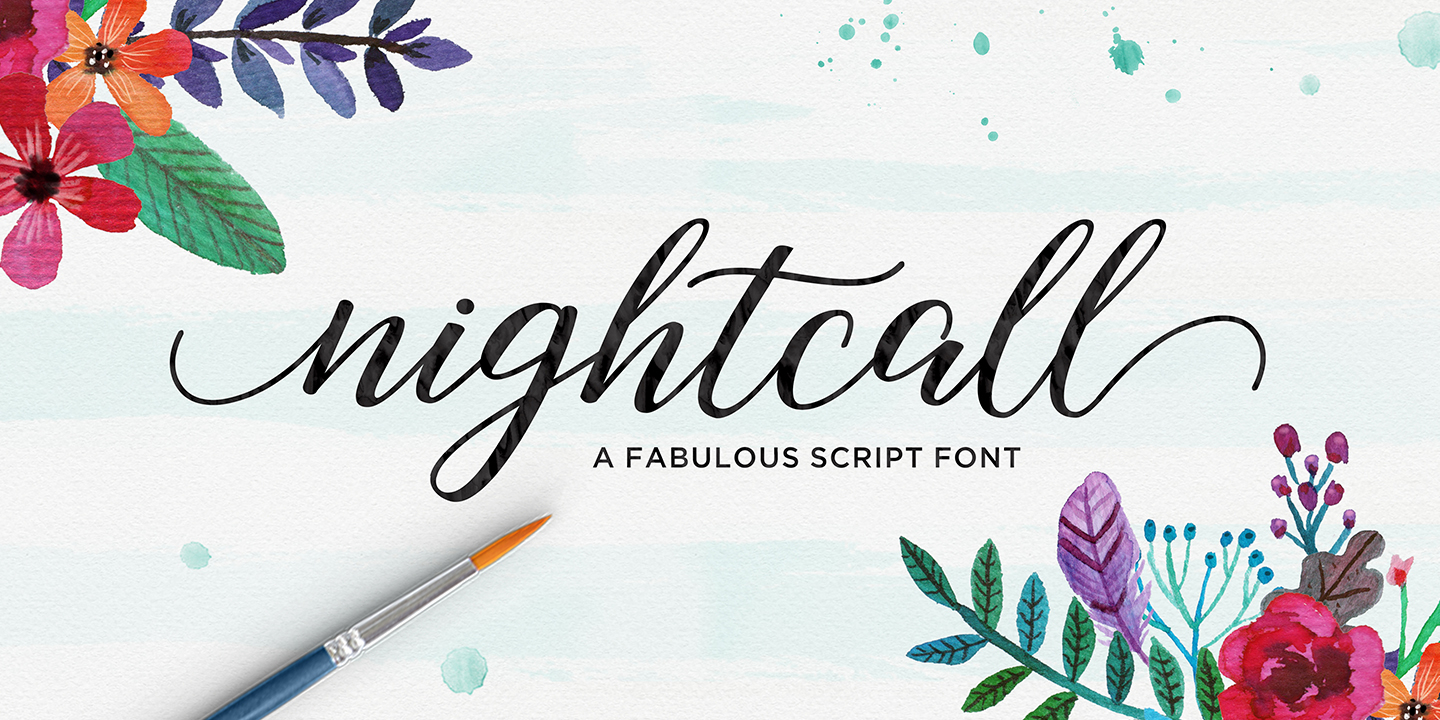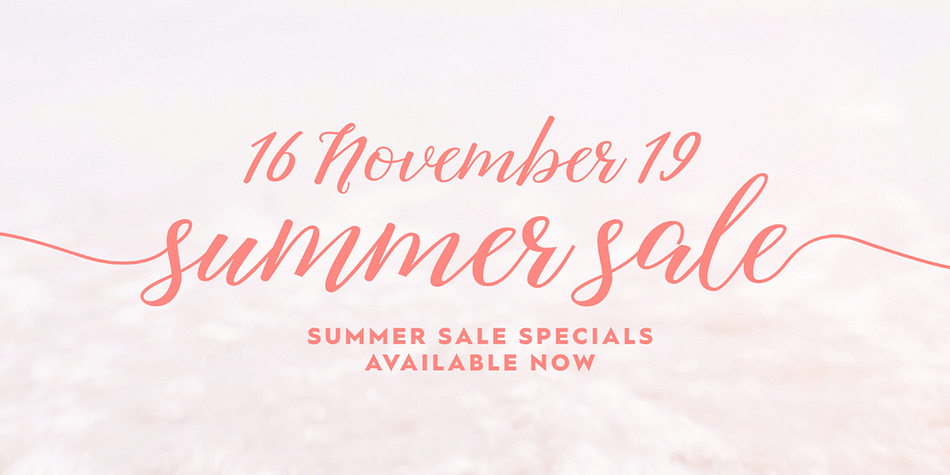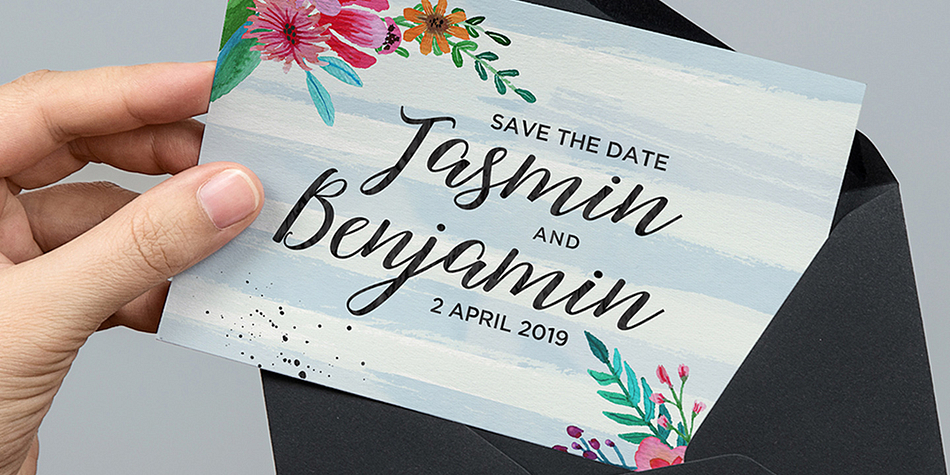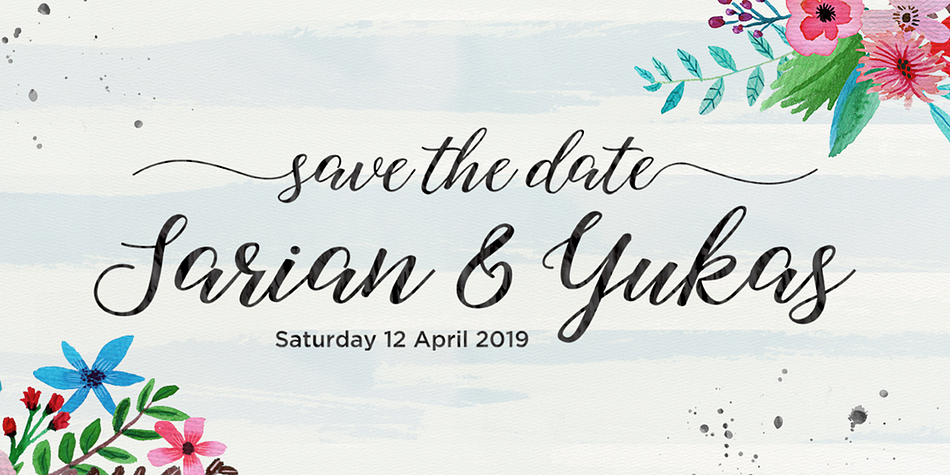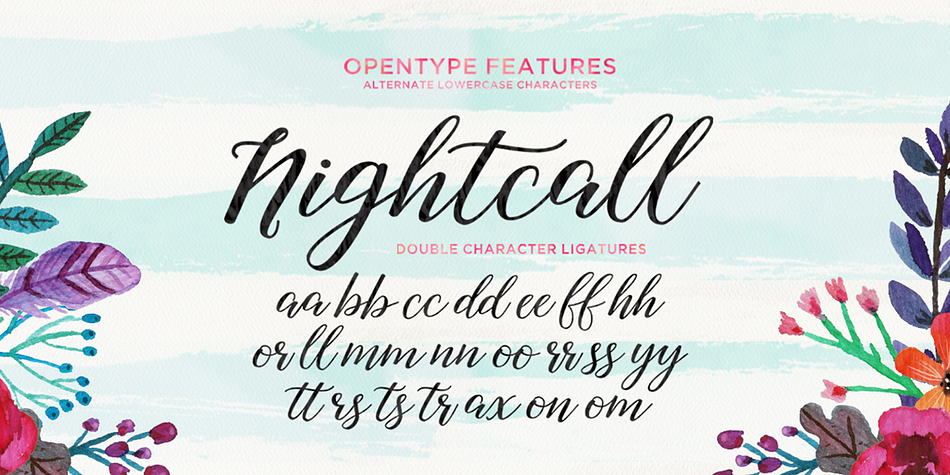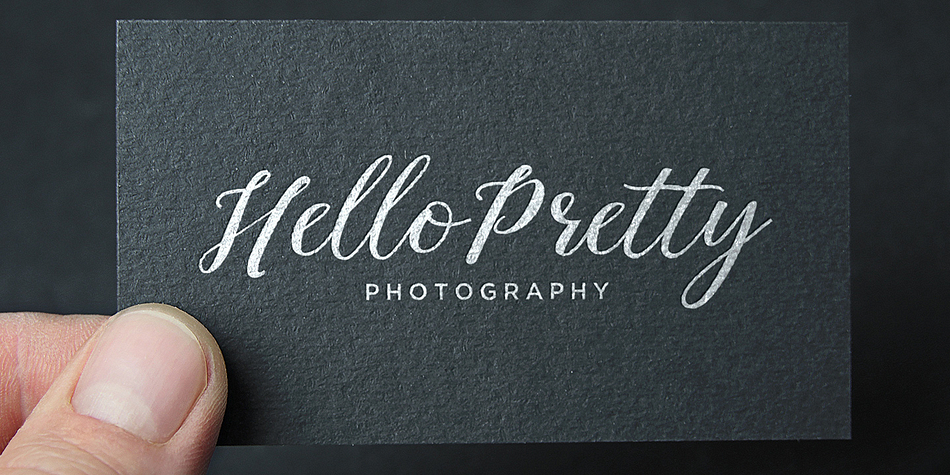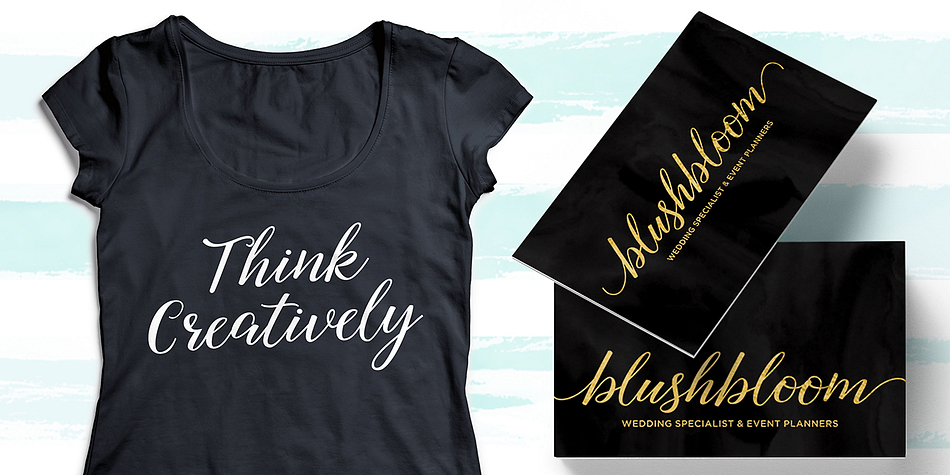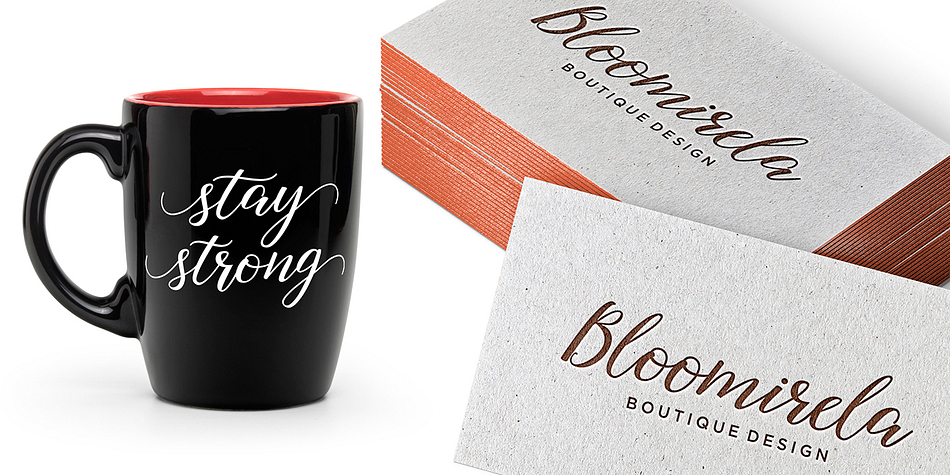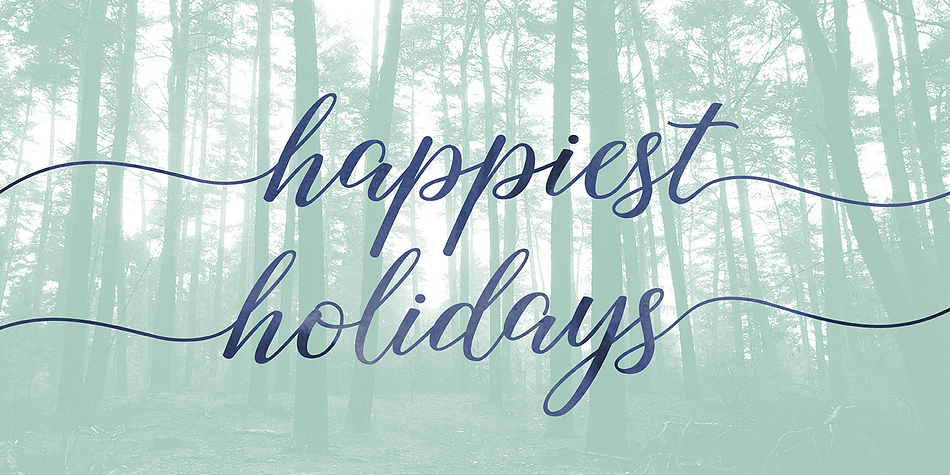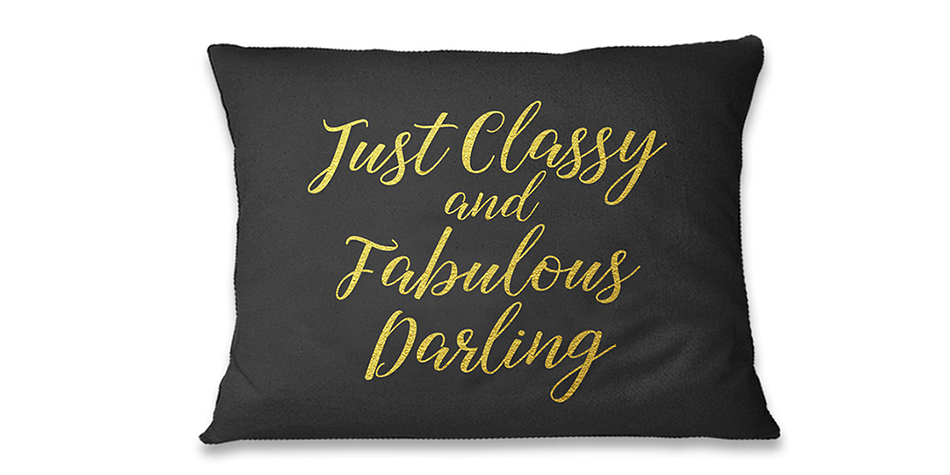
Nightcall is a modern calligraphy font family. This typeface has four styles and was published by Picatype Studio.
Nightcall Script is modern calligraphy design, including Regular, Upright and Bold Script. This font is casual and pretty with swashes. It can used for various purposes, such as signature, logo, product packaging, wedding invitations, branding, headlines, signage, labels, book covers, posters, quotes and more.
Nightcall Script features OpenType stylistic alternates, ligatures and International support for most Western Languages is included. To enable the OpenType Stylistic alternates, you need a program that supports OpenType features such as Adobe Illustrator CS, Adobe Indesign & CorelDraw X6-X7, Microsoft Word 2010 or later versions.